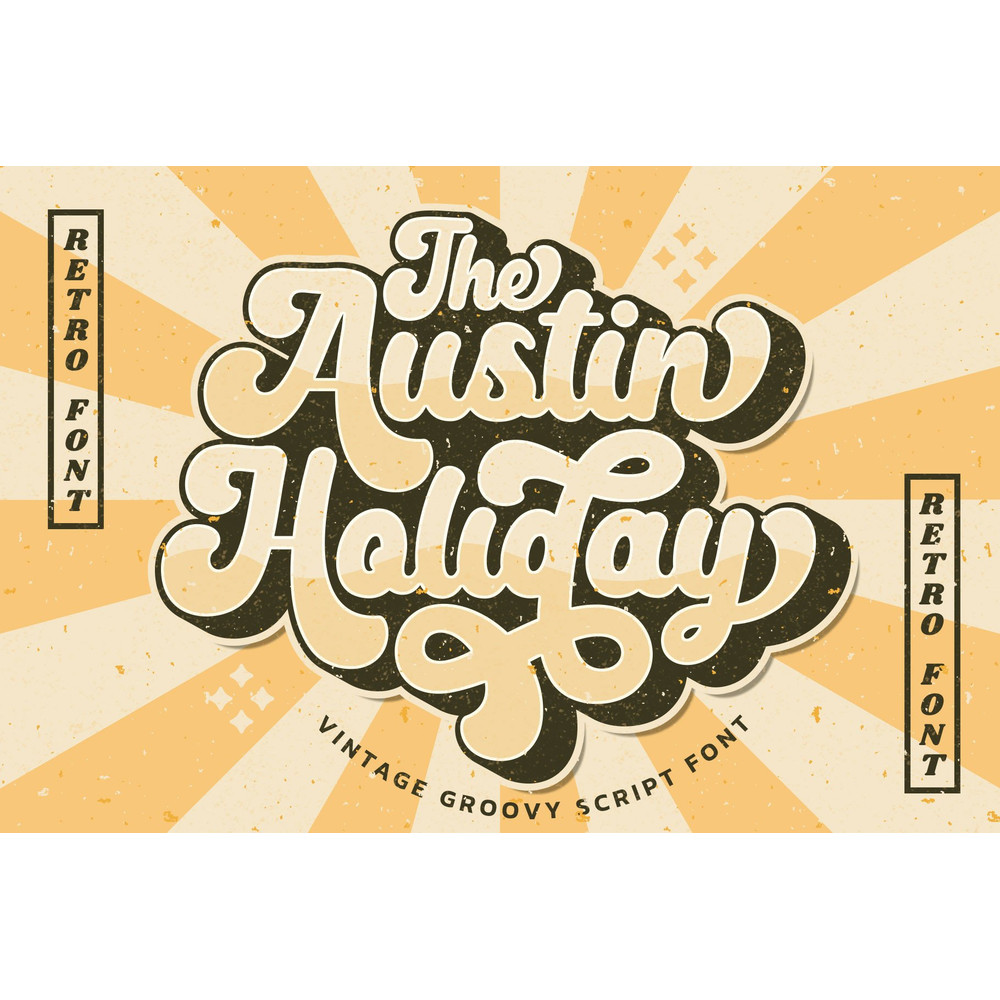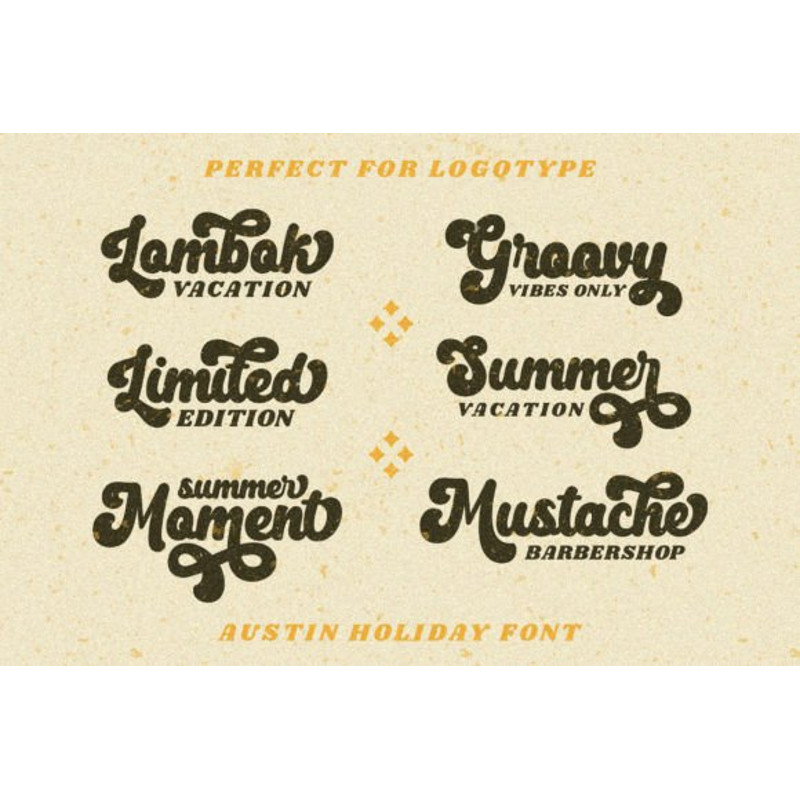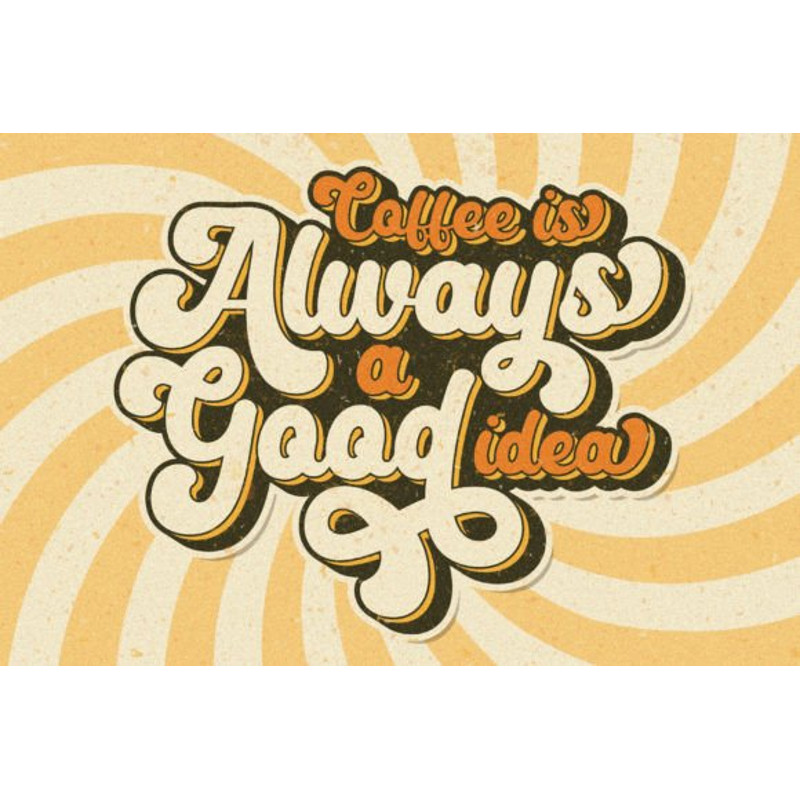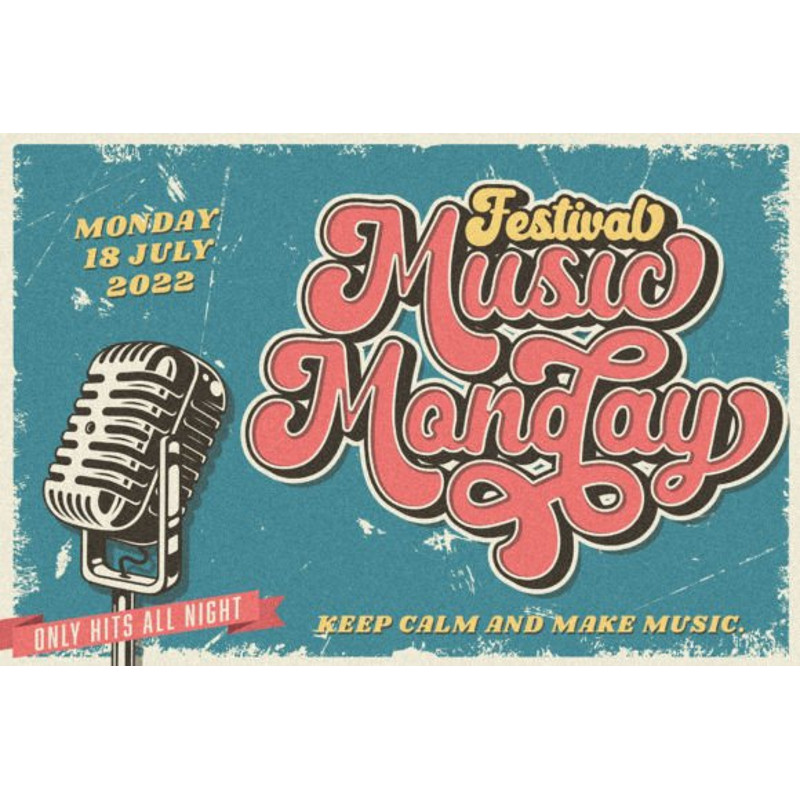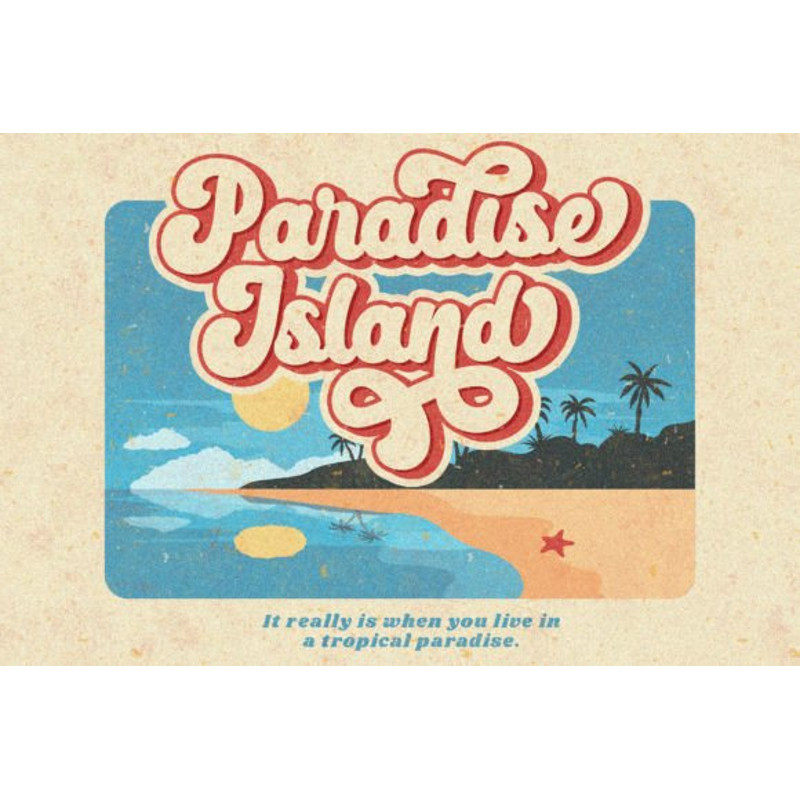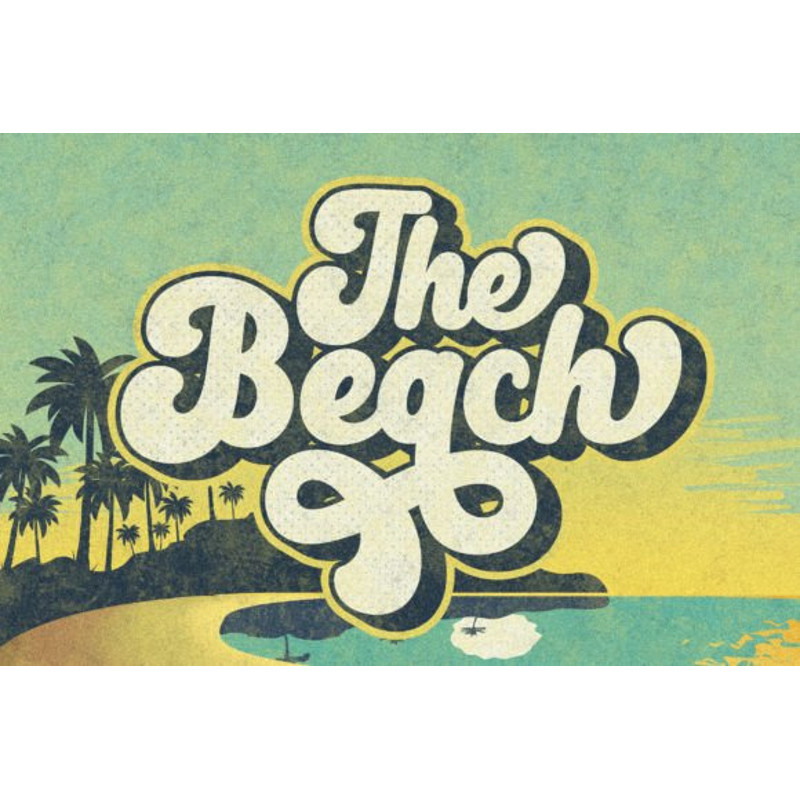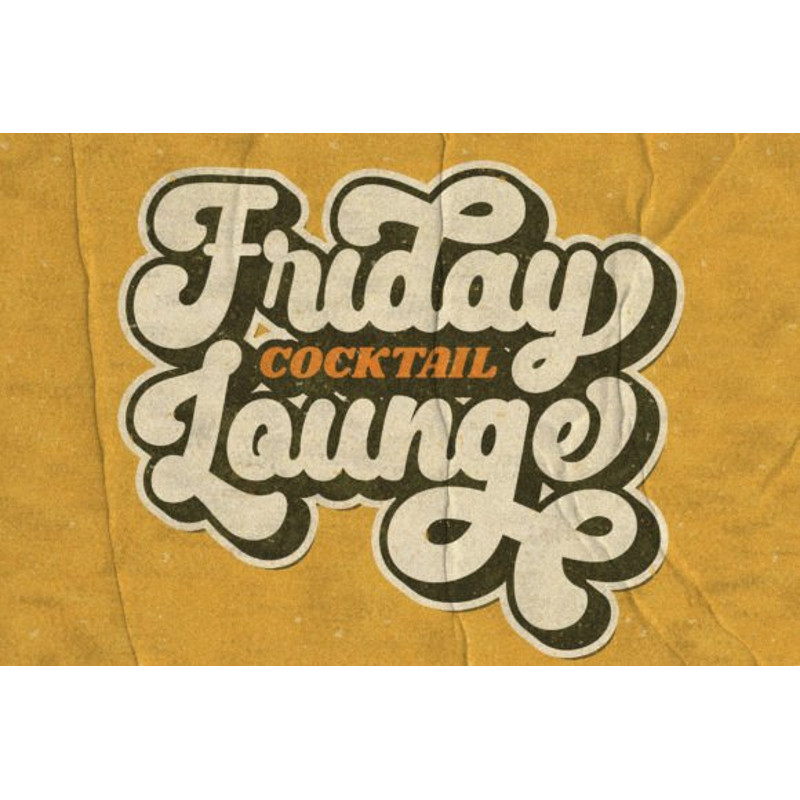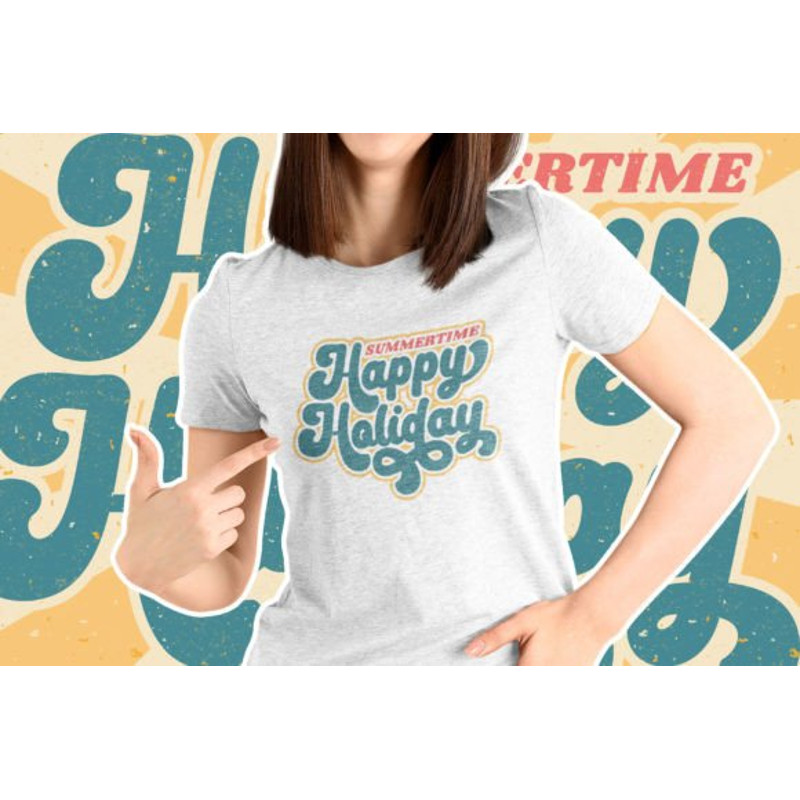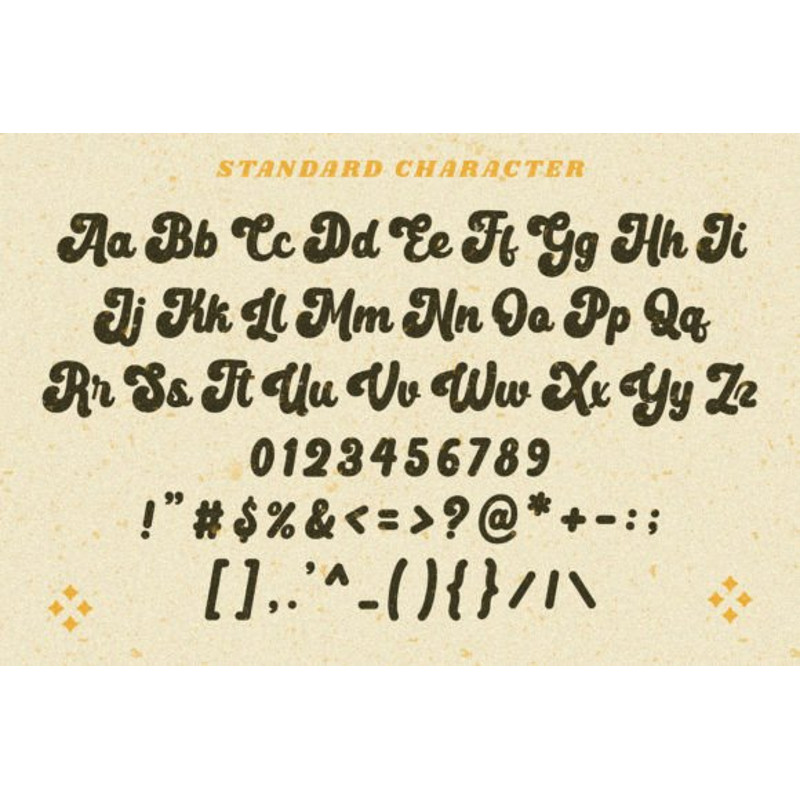
Austin Holiday Font
Austin Holiday is a retro and playful script font crafted to add tons of stylish character to your designs. This font is PUA encoded, which means you can access all of the glyphs and swashes with ease! Use this Script Display font to add that special retro touch to any design idea! It can be used for logos, branding, invitations, stationery, wedding designs, social media posts, and much more!
Austin Holiday Font
Austin Holiday is a retro and playful script font crafted to add tons of stylish character to your designs. This font is PUA encoded, which means you can access all of the glyphs and swashes with ease! Use this Script Display font to add that special retro touch to any design idea! It can be used for logos, branding, invitations, stationery, wedding designs, social media posts, and much more!